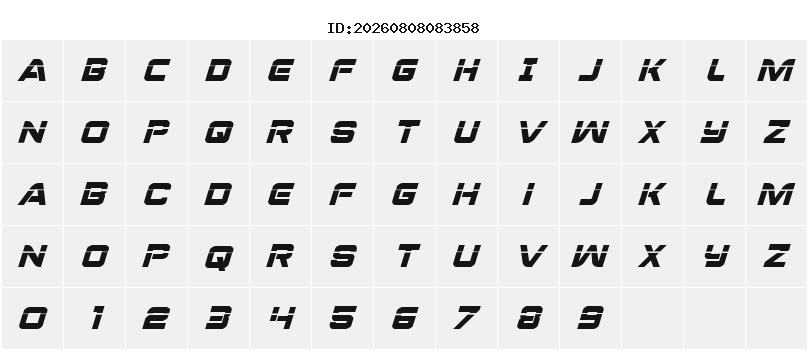
About Praetorian Laser Italic.ttf
Praetorian Laser Italic.ttf is a modern, elegant sans-serif font designed for ultimate readability and visual harmony. Perfect for branding, headlines, web design, and print materials.